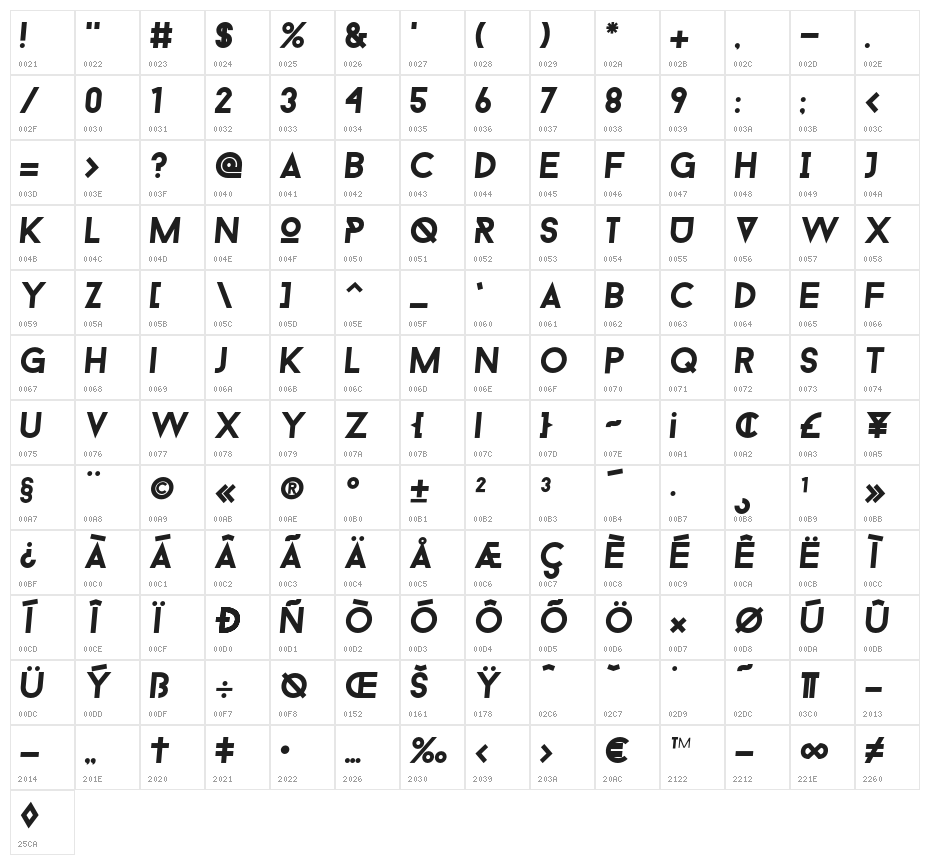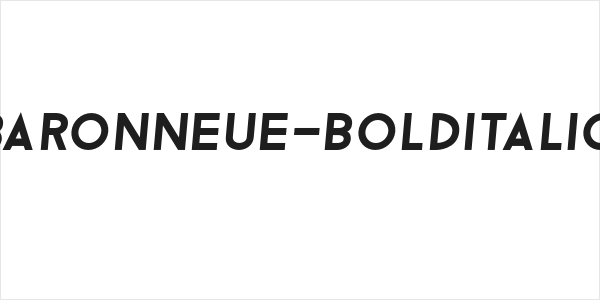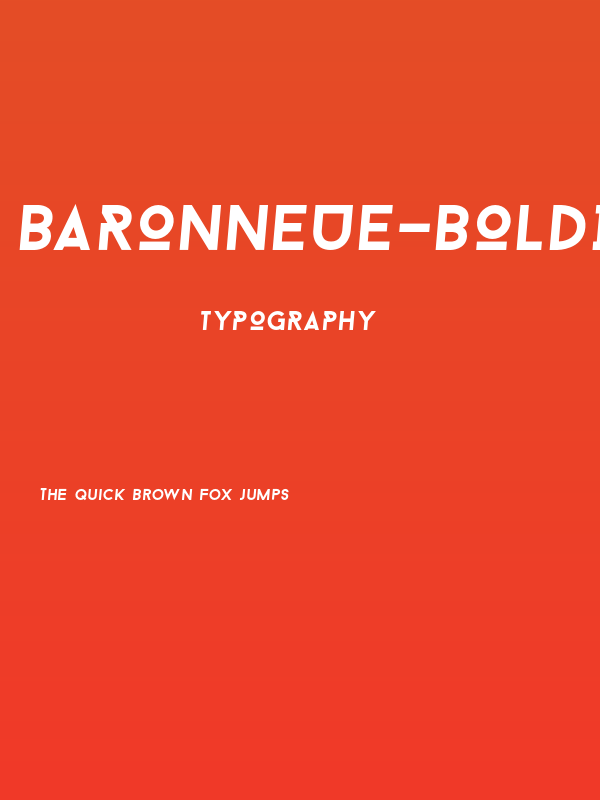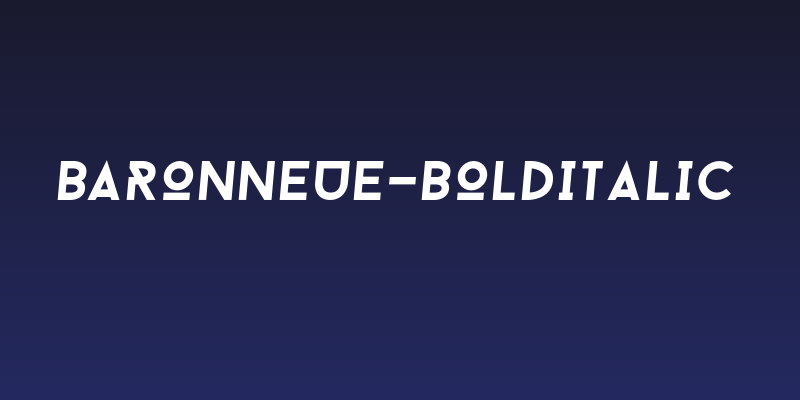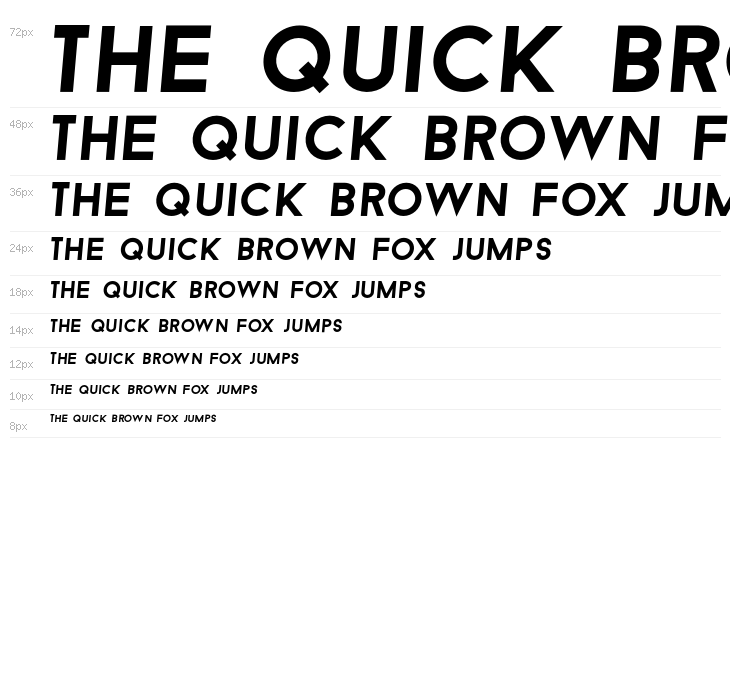
BaronNeue-Bolditalic Font
BaronNeue-Bolditalic Description
This font exhibits a bold and italicized style, characterized by its strong geometric shapes and clean lines. The uppercase and lowercase letters maintain a consistent slant, adding a dynamic and modern feel. The numerals are equally bold, ensuring readability and uniformity across different uses. Special characters are designed with the same attention to detail, making them stand out while remaining cohesive with the overall font style. The font's boldness and italic nature make it suitable for impactful headlines and titles.
| Proposed Projects | Ideal for branding projects, modern web design, advertising, and editorial headlines. |